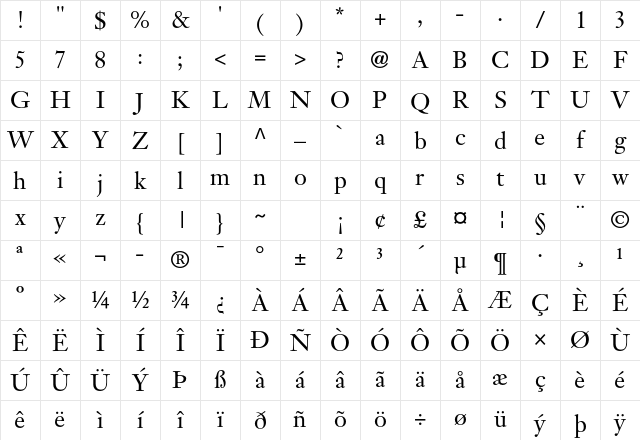
Janson Text LT Std 55 Roman Free Font
Janson Text LT Std 55 Roman
Style: 55 Roman
Designer: Nicholas Kis
Design Context for Janson Text LT Std
Janson Text LT Std is a composed and adaptable typeface that performs quietly and consistently across a wide range of design contexts. Its slender proportions lend an understated elegance to any composition.